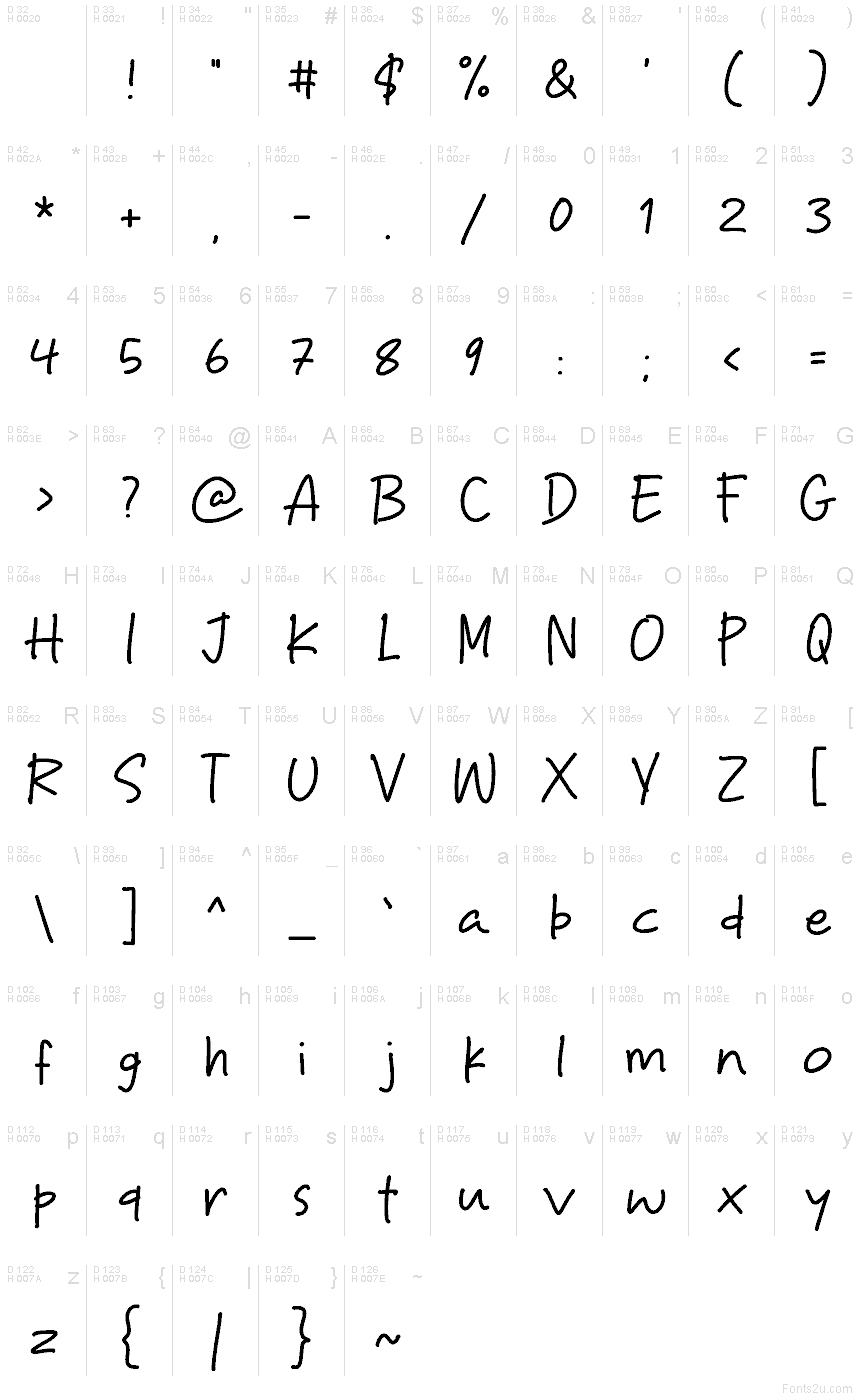
Hope Take
Hope Take font is a free handwritten font from Khurasan that embodies casual elegance with its organic flow. Its approachable feel captures the essence of handwritten aesthetics, making it perfect for contemporary applications. Designed with an effortless and authentic vibe, each letter forms a harmonious balance that stands out in every design it graces.